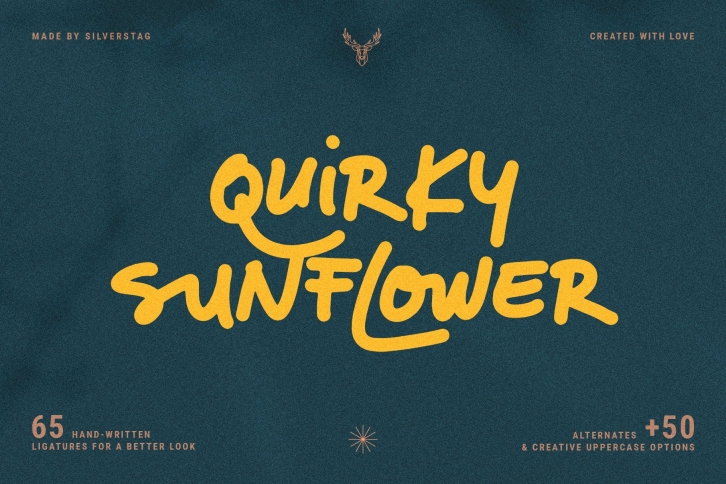
Quirky Sunflower is a beautiful font that was designed by SilverStag. It's a great choice for designers and creatives who need such a font. It was released on April 6, 2022 and the file size is 6.12 MB. Quirky Sunflower may give a more youthful, expressive and casual look to your project. It is a very beautiful, refined, elegant, and high-quality font.